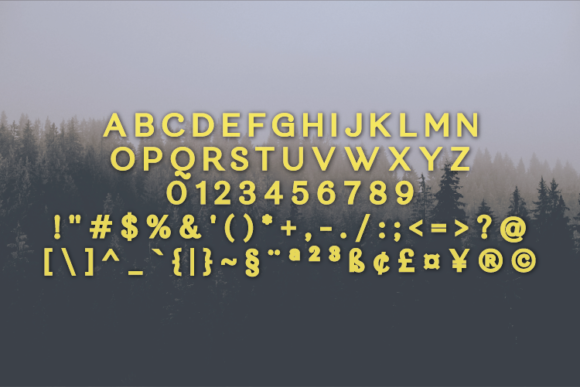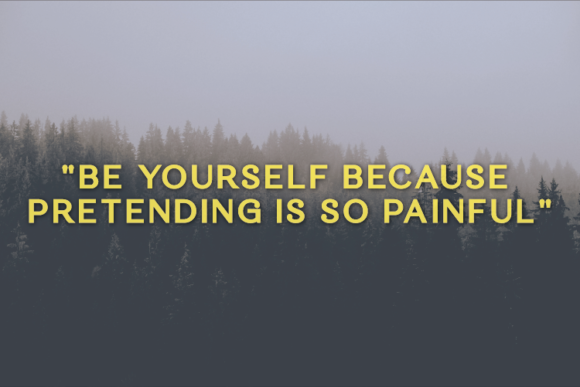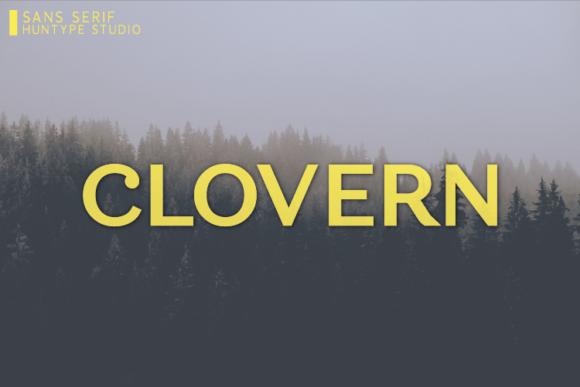
Clovern Font: A Simple yet Powerful Sans Serif Font for Your Design Projects
In the world of typography, fonts play a crucial role in conveying the message and tone of a design. With so many fonts available, it can be overwhelming to choose the right one for your project. However, if you’re looking for a simple and thick lettered sans serif font that works beautifully for logos, branding, and web headings, look no further than Clovern Font. In this article, we’ll explore the features and benefits of Clovern Font and why it’s a great addition to your design projects.
What is Clovern Font?
Clovern Font is a sans serif font that is characterized by its simple and thick lettering. It’s a modern font that is designed to be versatile and easy to read, making it perfect for a wide range of design projects. Whether you’re creating a logo, branding materials, or web headings, Clovern Font is a great choice.
Key Features of Clovern Font
So, what makes Clovern Font stand out from other fonts? Here are some of its key features:
• Simple and Thick Lettering: Clovern Font features simple and thick lettering that is easy to read and understand.
• Sans Serif: The font is sans serif, which means it doesn’t have any decorative lines or flourishes.
• Versatile: Clovern Font is a versatile font that can be used for a wide range of design projects, from logos and branding to web headings.
• Modern Design: The font has a modern design that is perfect for contemporary design projects.
Benefits of Using Clovern Font
So, why should you use Clovern Font for your design projects? Here are some of the benefits:
• Easily Readable: The font is easy to read, even at small sizes, making it perfect for web headings and other digital applications.
• Highly Versatile: Clovern Font can be used for a wide range of design projects, from logos and branding to web headings and more.
• Modern and Fresh: The font has a modern and fresh design that will give your design projects a contemporary feel.
• Easy to Pair: Clovern Font is easy to pair with other fonts, making it perfect for designs that require multiple fonts.
How to Use Clovern Font in Your Design Projects
Using Clovern Font in your design projects is easy. Here are some tips:
• Logos and Branding: Use Clovern Font as a logo font or for branding materials, such as business cards and letterheads.
• Web Headings: Use the font for web headings to add a modern and fresh touch to your website.
• Print Materials: Use Clovern Font for print materials, such as brochures, flyers, and posters.
• Pair with Other Fonts: Pair Clovern Font with other fonts to create a unique and interesting design.
In conclusion, Clovern Font is a simple and powerful sans serif font that works beautifully for logos, branding, and web headings. Its simple and thick lettering, modern design, and versatility make it a great addition to your design projects. Whether you’re a designer or a crafter, Clovern Font is a great choice for your next project. So, add it confidently to your projects, and you won’t be disappointed.